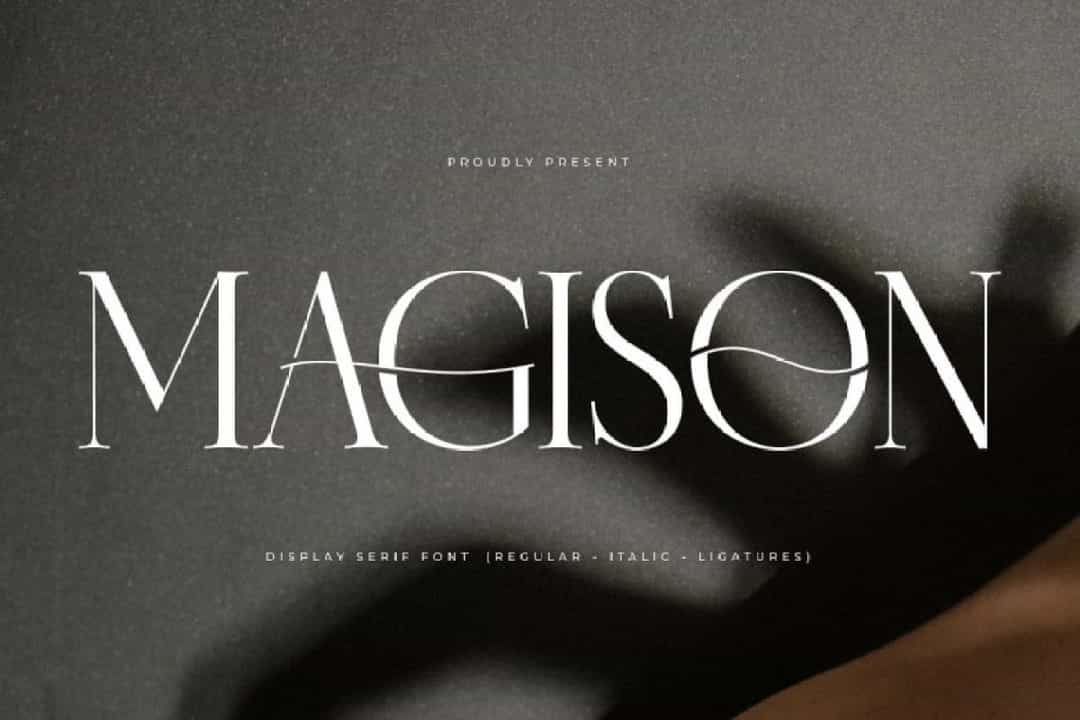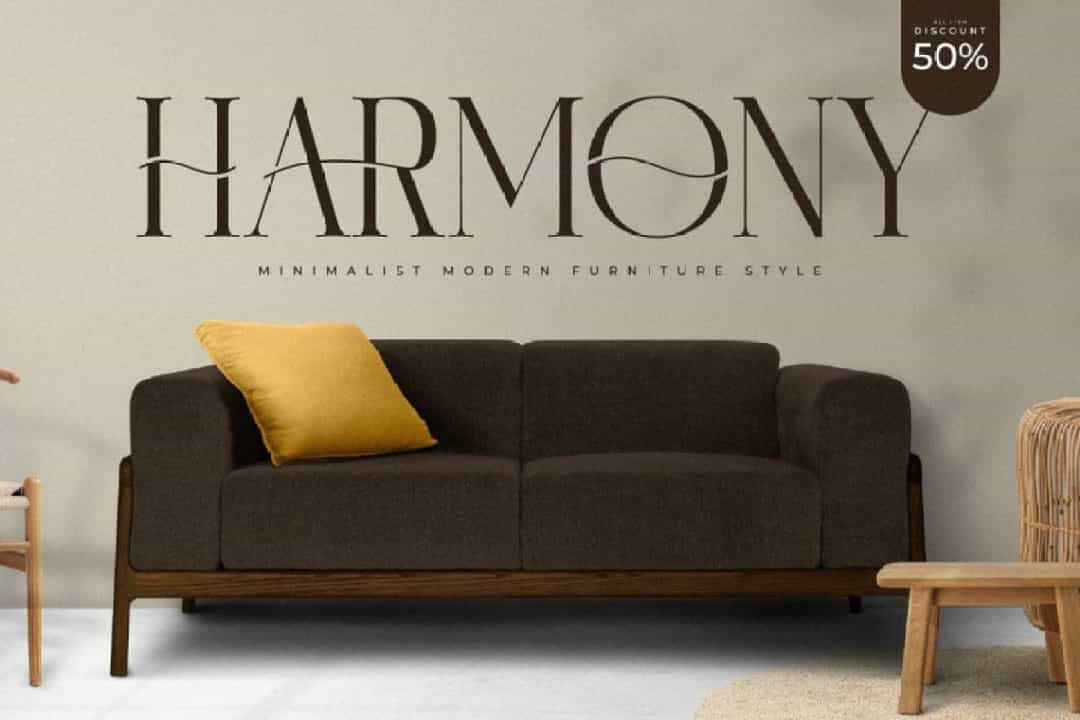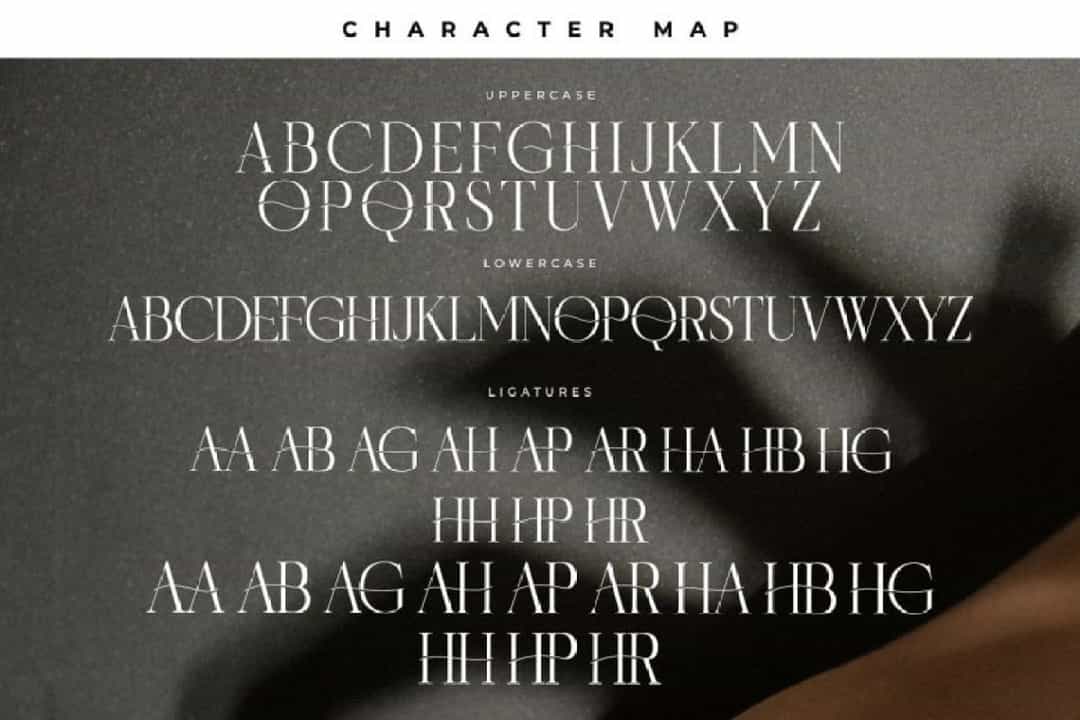
Magison is an elegant and modern serif font with distinctive design features and contemporary appeal, ideal for creating luxurious logos, book or film styles, fashion label clothes, magazines and lettering applications, quotations among others.